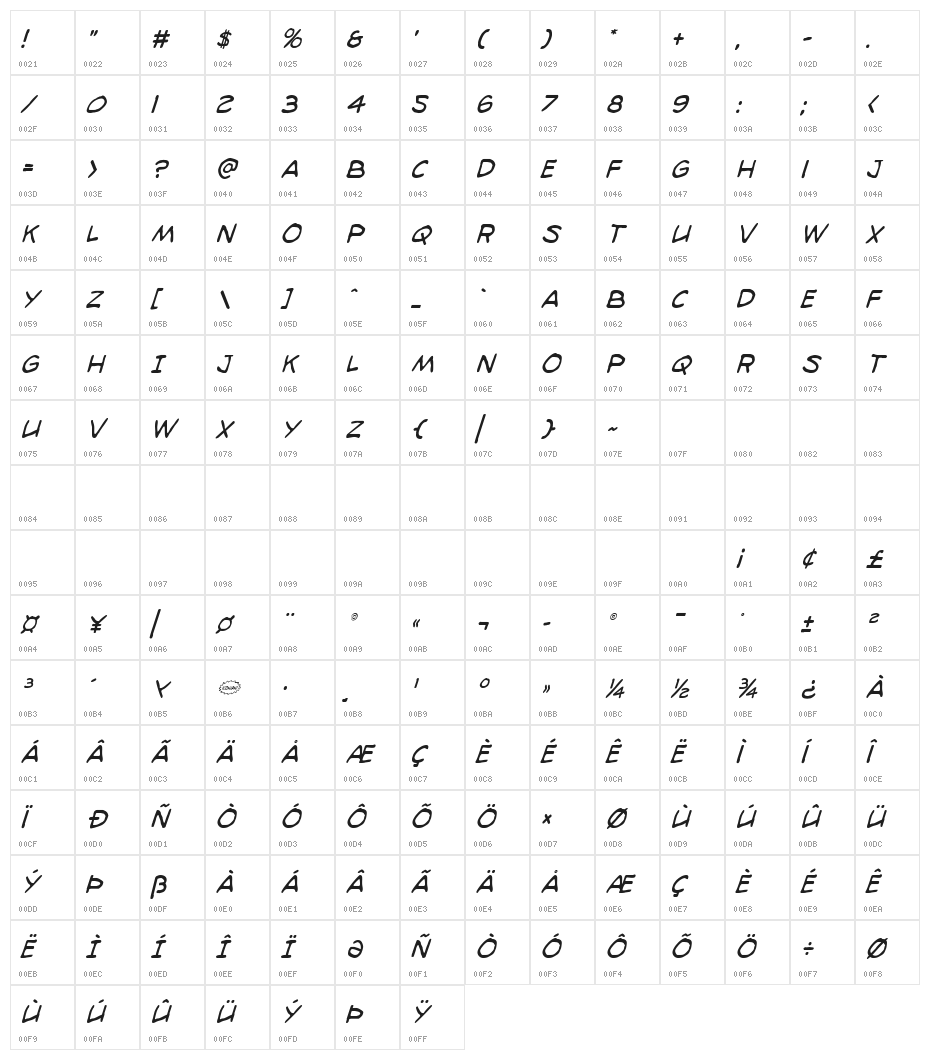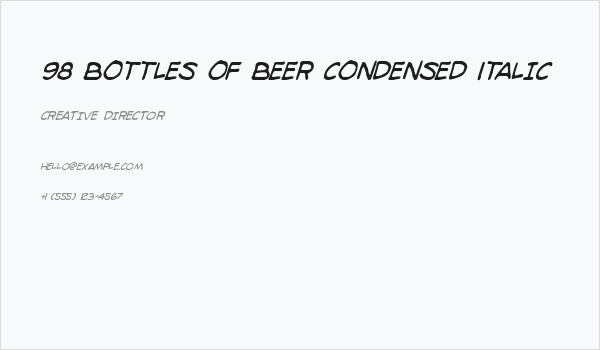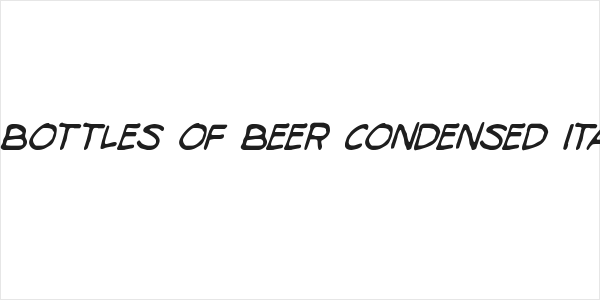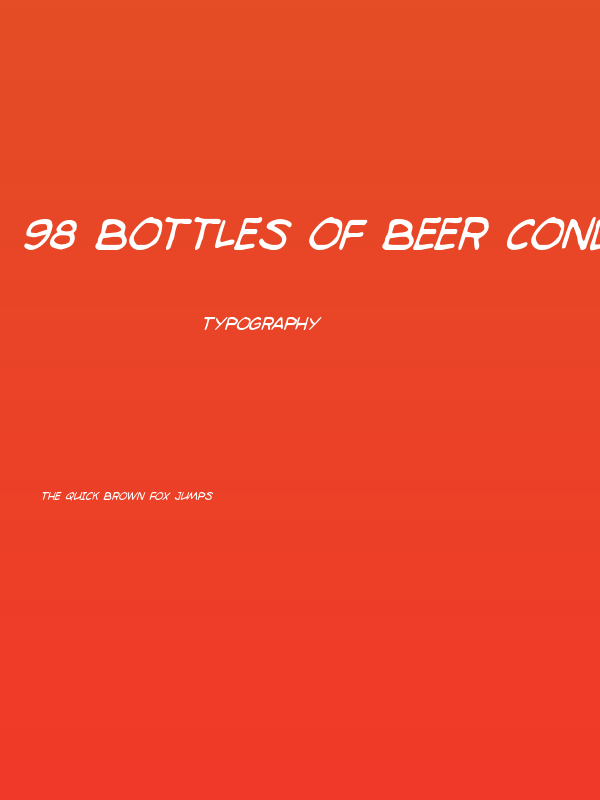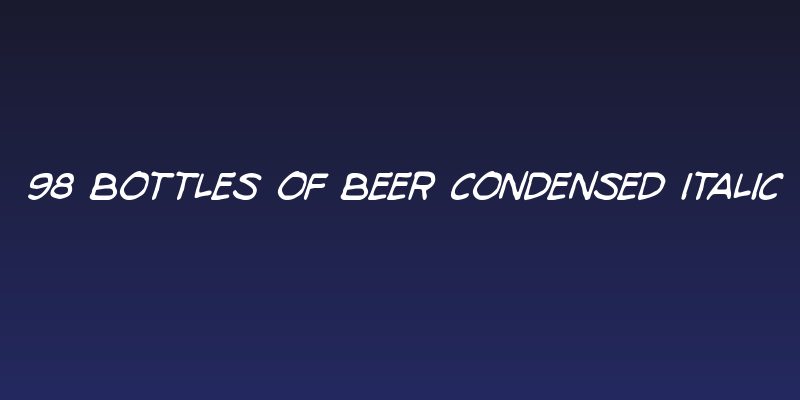
98 Bottles of Beer Condensed Italic Font
98 Bottles of Beer Condensed Italic Description
This font features a dynamic and energetic style with a condensed and italicized form. The characters are bold and slightly slanted, giving a sense of motion and fluidity. The strokes are consistent in thickness, providing a balanced appearance. The uppercase and lowercase letters maintain a cohesive look, while the numerals and special characters are designed to complement the overall style. This font is ideal for projects that require a lively and informal touch.
| Proposed Projects | Perfect for posters, advertisements, and branding materials that need a lively and informal touch. |